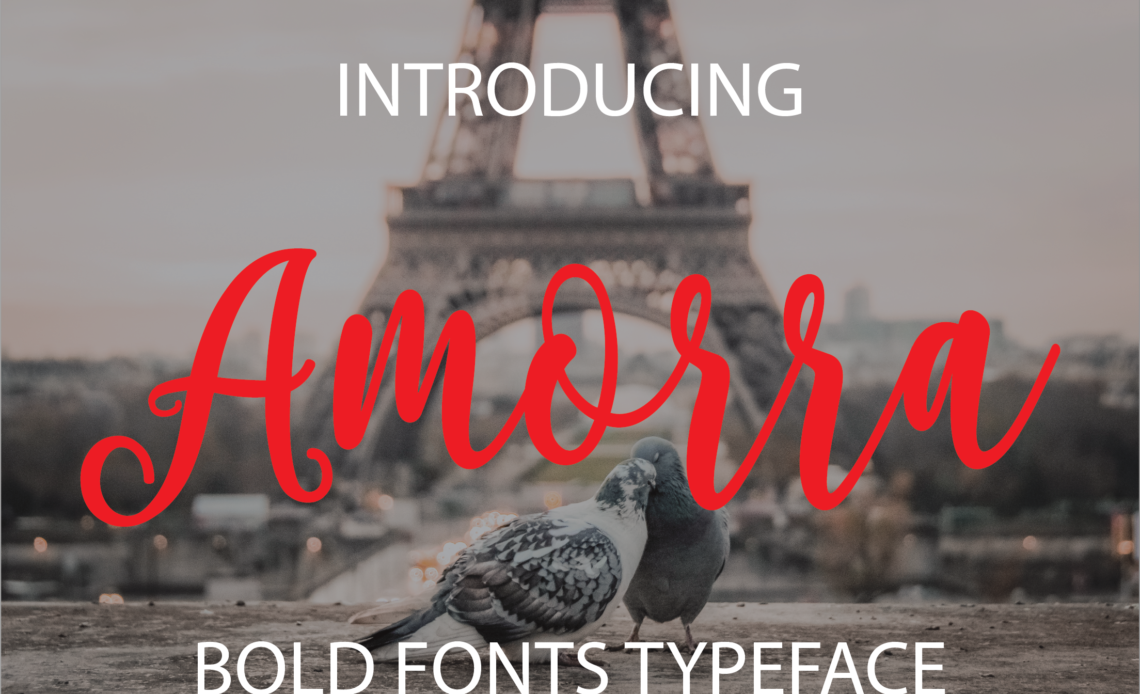
Introducing Amorra Font, a captivating handwritten script font that exudes charm and sophistication. With its relaxed and bold strokes, Amorra adds a personal touch to any project, evoking a sense of authenticity and warmth.
Crafted by the skilled hands of ed.creative, Amorra is a versatile font that shines in multiple settings. Whether you're creating elegant invitations, heartfelt letters, stunning social media posts, or eye-catching branding materials, Amorra seamlessly adapts to your vision.
With its playful curves and organic flow, Amorra captures the essence of handwritten expression. Its bold strokes convey a sense of confidence, while its casual appeal adds a touch of approachability. This enchanting font is perfect for projects that demand a personal connection, where emotions and messages need to resonate deeply.
Embrace the allure of Amorra and let your creativity soar. Dive into a world of endless possibilities, where words dance gracefully and sentiments come alive. Transform your designs into captivating works of art, leaving a lasting impression on your audience.
Don't miss out on the opportunity to own this adaptable script font. Its versatility and charm will elevate your projects to new heights, adding a touch of elegance and originality that will set you apart.
Experience the magic of Amorra today and discover a font that truly captures the essence of heartfelt expression and visual delight. Let your words flow effortlessly, carrying your message with beauty and grace.